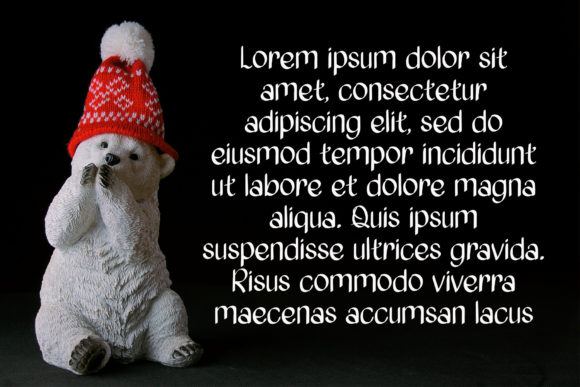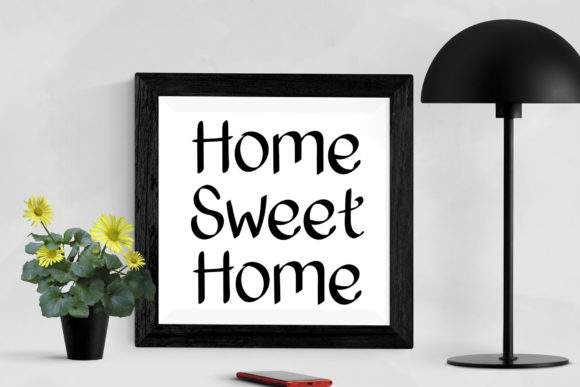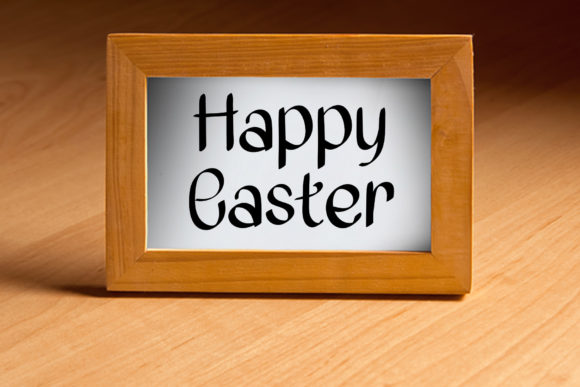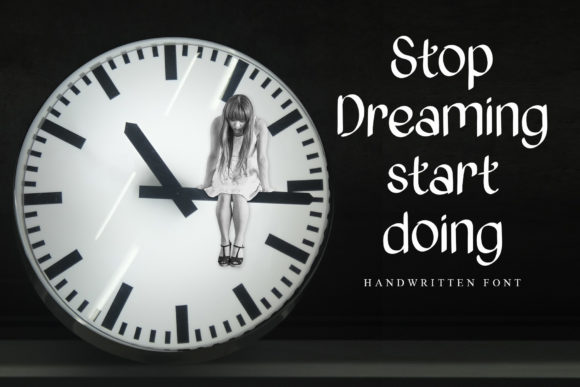
Valentine Chocolate Font
About Valentine Chocolate Font
Valentine Chocolate is a beautiful handwritten font. It is perfect for use on wedding invitations, greeting cards, billboards, logos, business cards, and any other design that requires a customized touch.